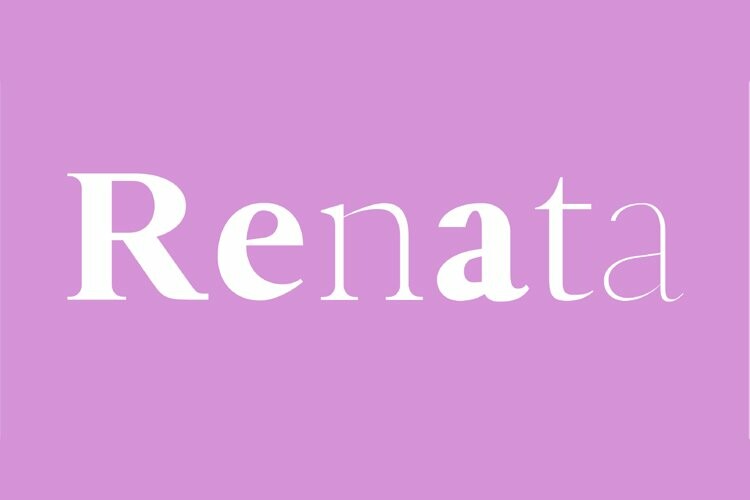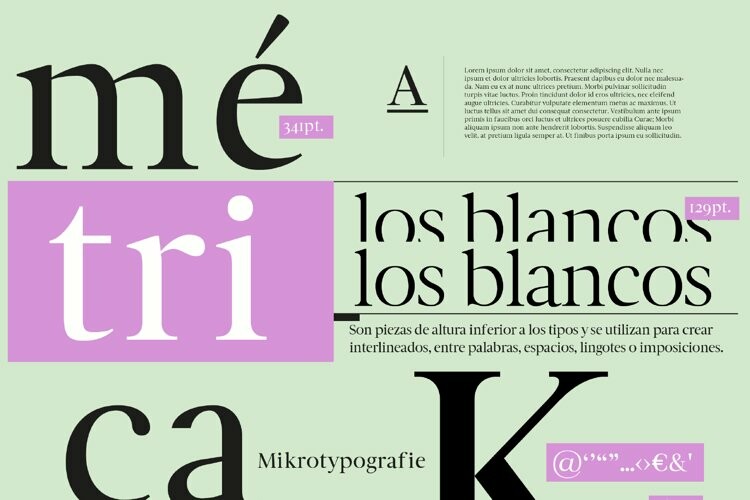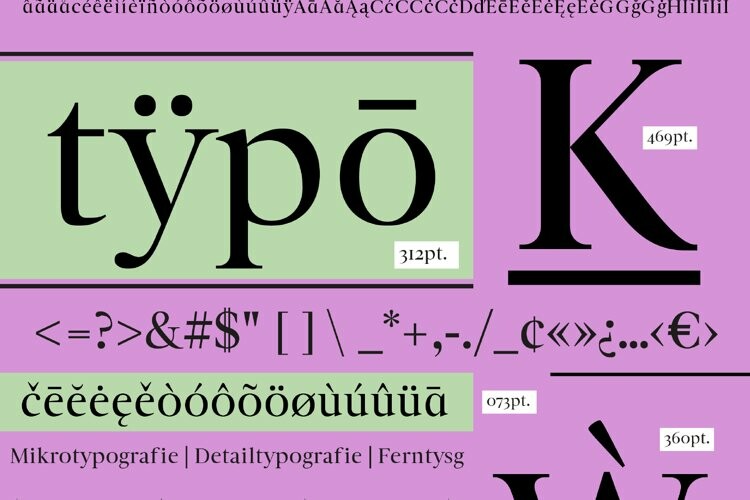
Renata Font
Renata FontModern Serif typography with 5 variables. If there is a problem, question or anything about my product, please sent an email. Thank you!